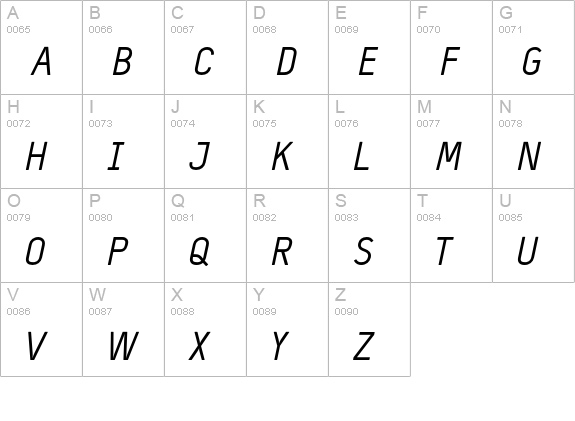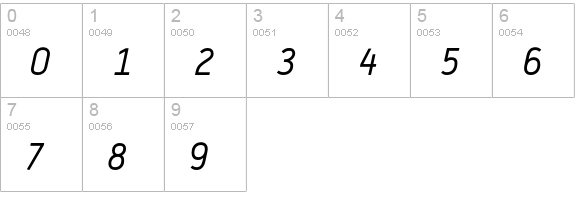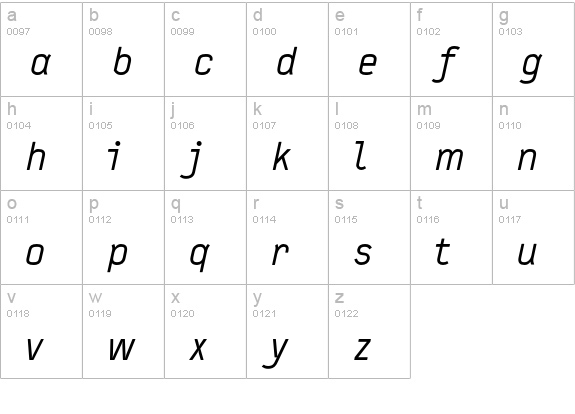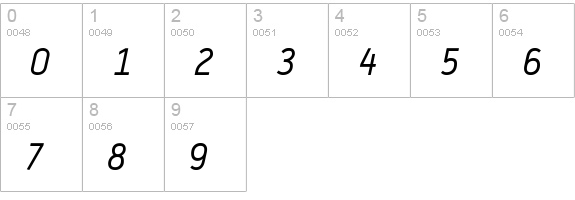
Typestar-NormalItalic Font Details
Typestar-NormalItalic is a stylish and versatile font that adds a touch of elegance to any design. With its slanted and italicized letterforms, this font exudes a sense of sophistication and flair. Whether used for headlines, body text, or even logos, Typestar-NormalItalic will surely make a lasting impression. The smooth curves and delicate strokes of Typestar-NormalItalic create a harmonious balance between legibility and creativity. This font effortlessly captures attention, making it perfect for projects that require a dash of uniqueness and creativity. Its italicized nature adds a sense of movement and dynamism, enhancing the overall visual appeal of any design. One of the best features of Typestar-NormalItalic is that it is completely free. Yes, you read that right! This stunning font is freely available to download at FontsMarket.com. Now, you can add a touch of elegance to your designs without breaking the bank. Whether you are a professional designer or just starting out, Typestar-NormalItalic is a must-have font in your collection. Its versatility and timeless appeal make it suitable for a wide range of design projects, from print materials to digital graphics. So why wait? Head over to FontsMarket.com and download Typestar-NormalItalic for free today!